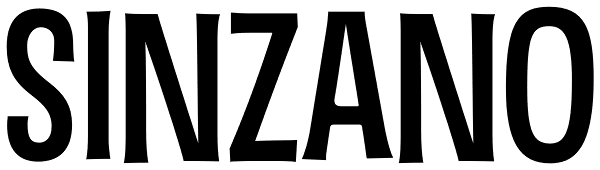
Sinzano
Sinzano is a casual, interlocking typeface. Certain letter combinations are automatically replaced with interesting, intertwined ligatures. Sinzano is available in three styles: Sinzano regular is a gently flared, narrow headliner. Sinzano Sans is...
Sinzano
Sinzano Sans
Sinzano Display Sans